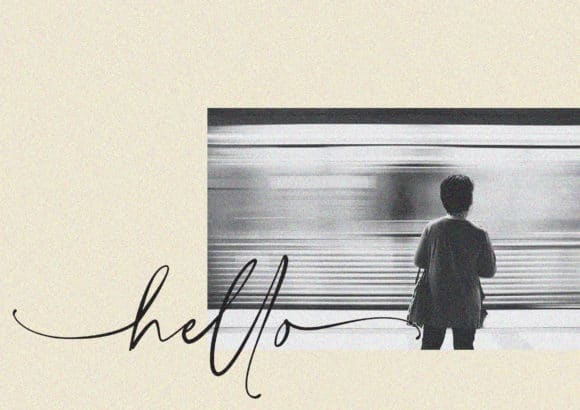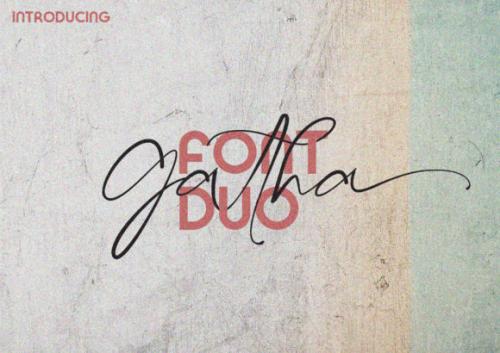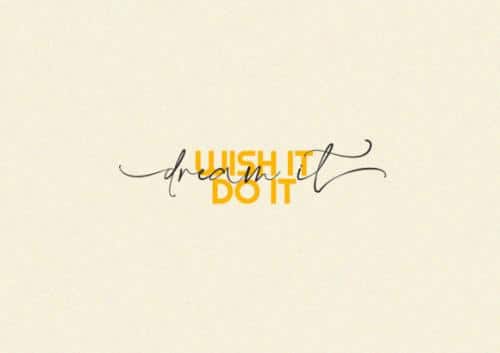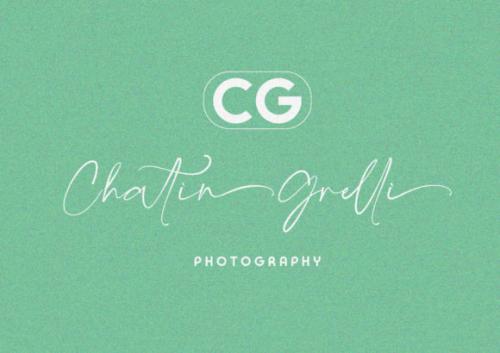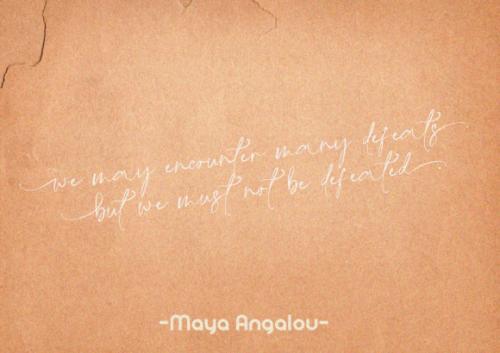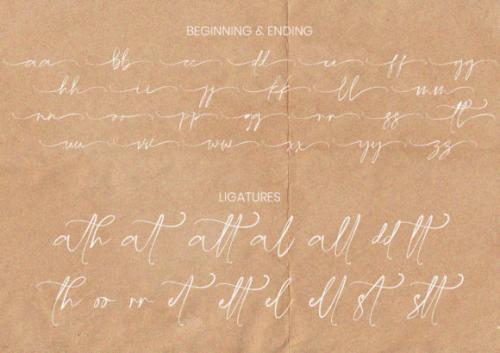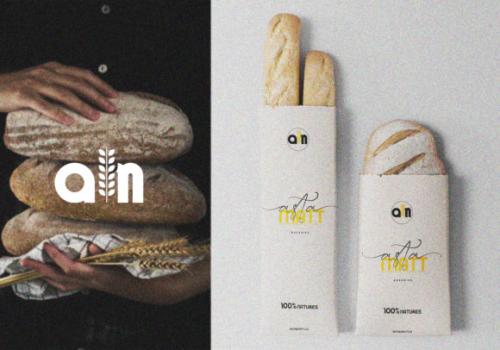
Gatha duo font is a match made in heaven! It perfectly combines a beautiful script with an elegant sans serif. These styles are ready to be used together and give your designs a modern and unique look!
- Designer: khaiuns